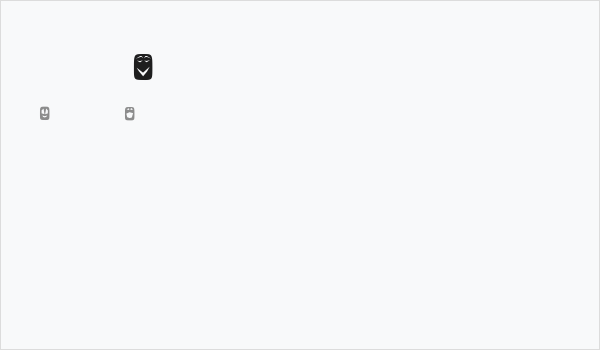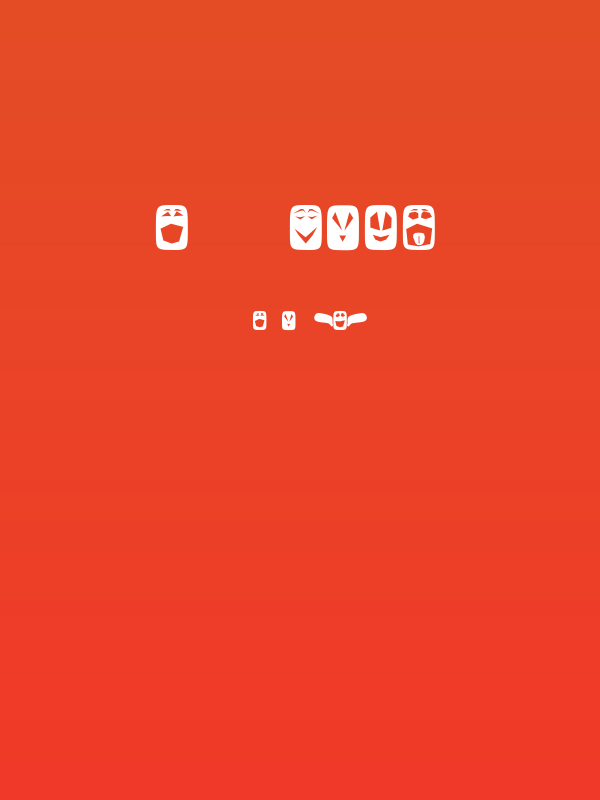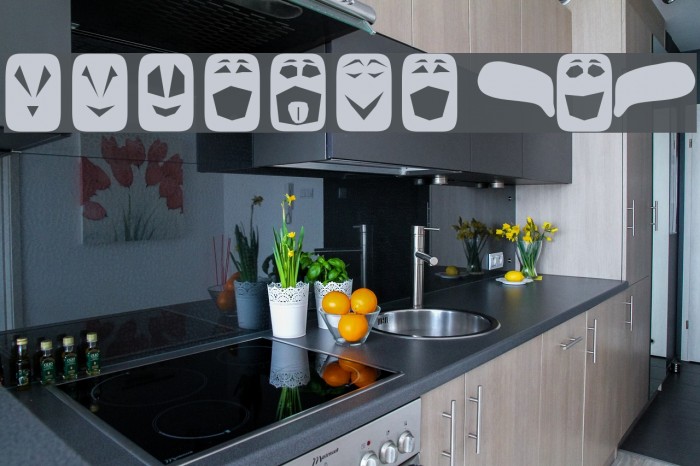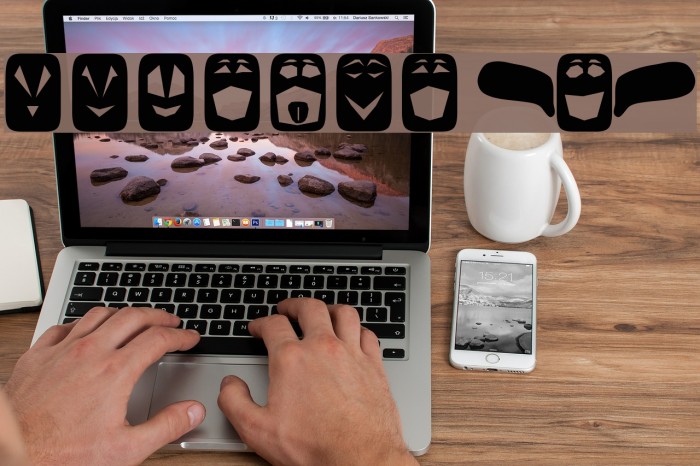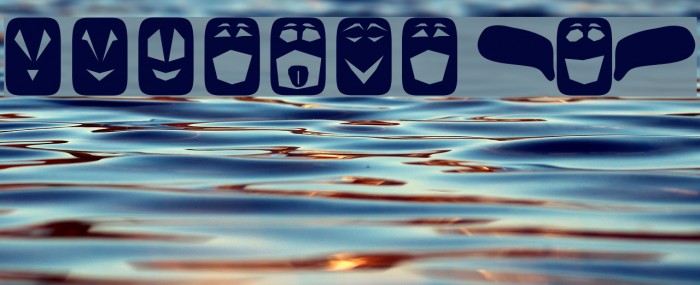
Ugly Faces Font
Ugly Faces Description
This is a decorative font featuring unique, stylized faces within rectangular frames. Each character is represented by a different facial expression, ranging from happy to mischievous, with bold, thick lines that create a strong visual impact. The design is playful and artistic, making it stand out as a creative choice for projects that require a touch of humor or whimsy. The characters are evenly spaced, ensuring readability despite their unconventional appearance. This font is ideal for projects that aim to capture attention and convey a sense of fun.
| Use Case | Logos, Posters, Creative projects |
| Proposed Projects | Ideal for children's books, comic strips, playful branding, and creative posters. |